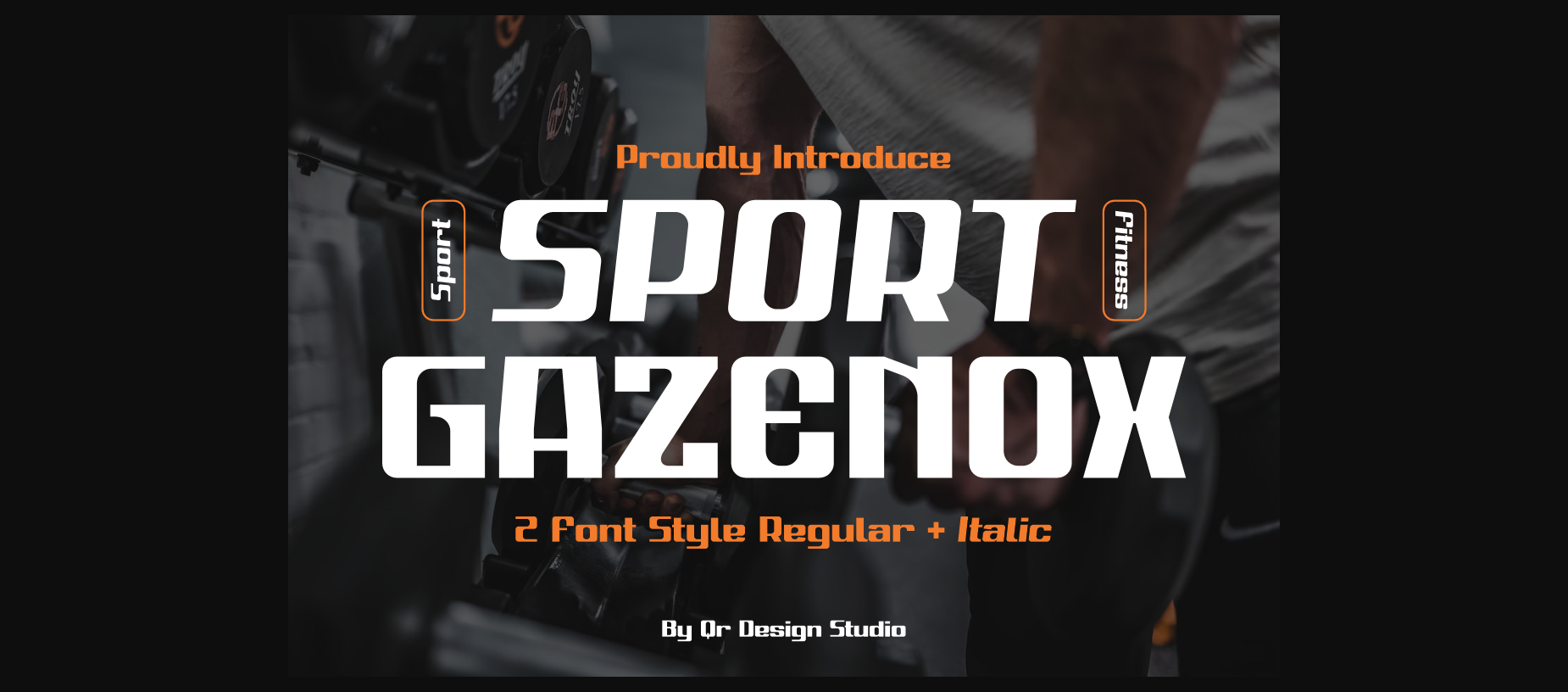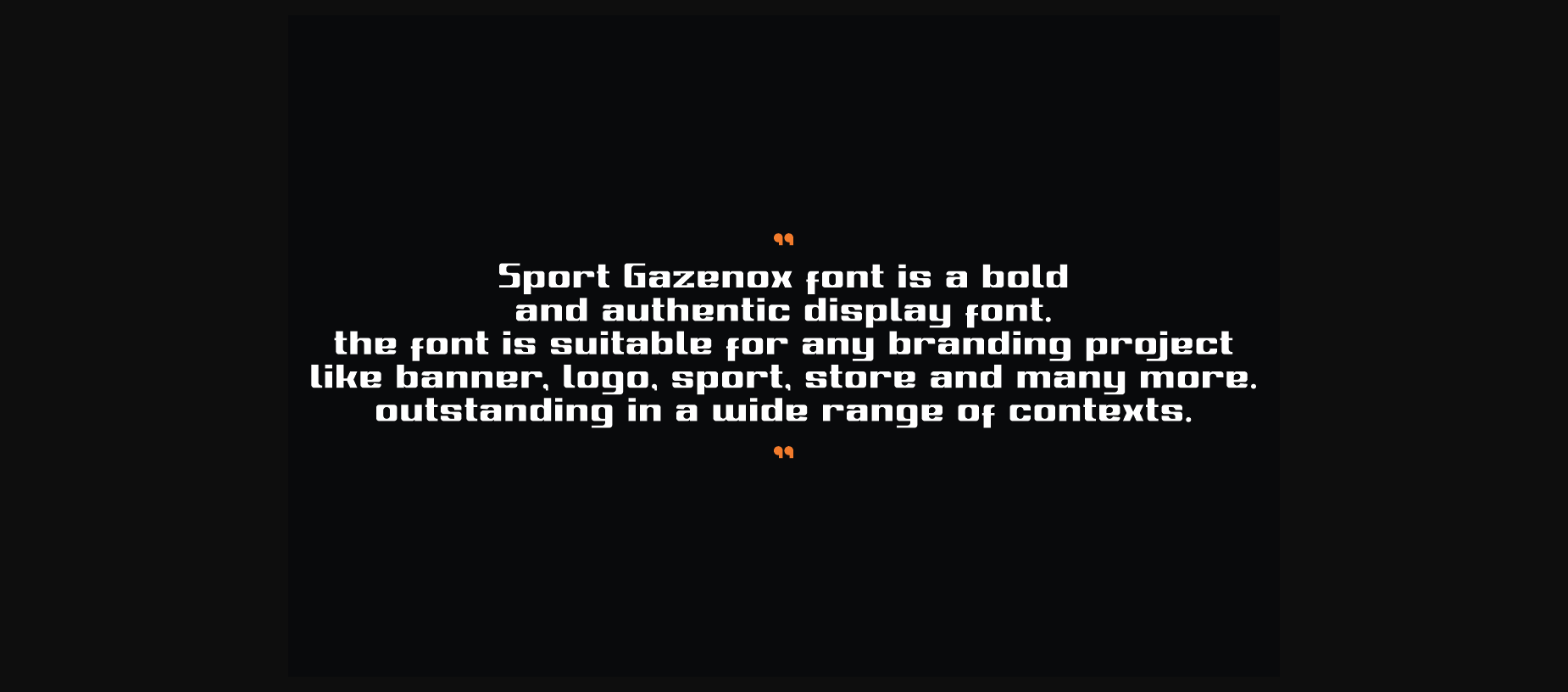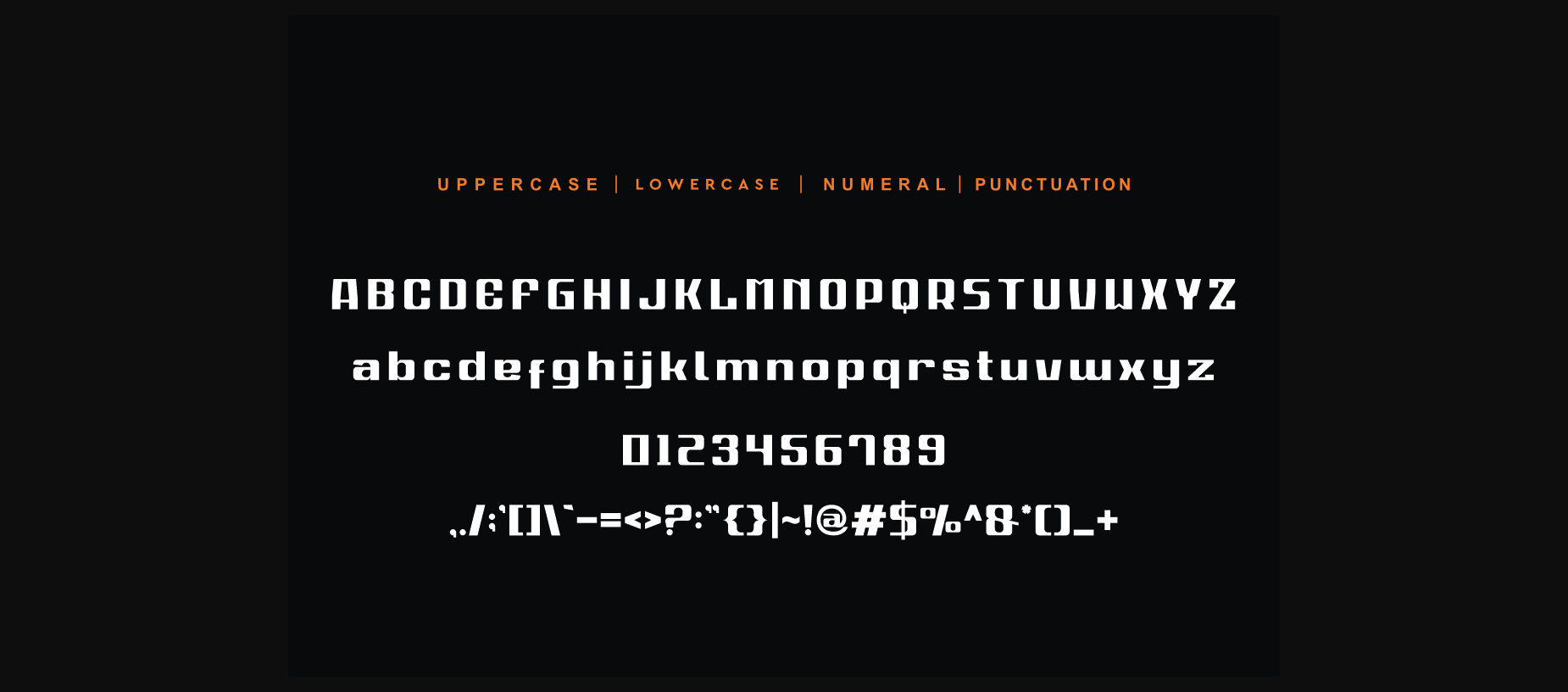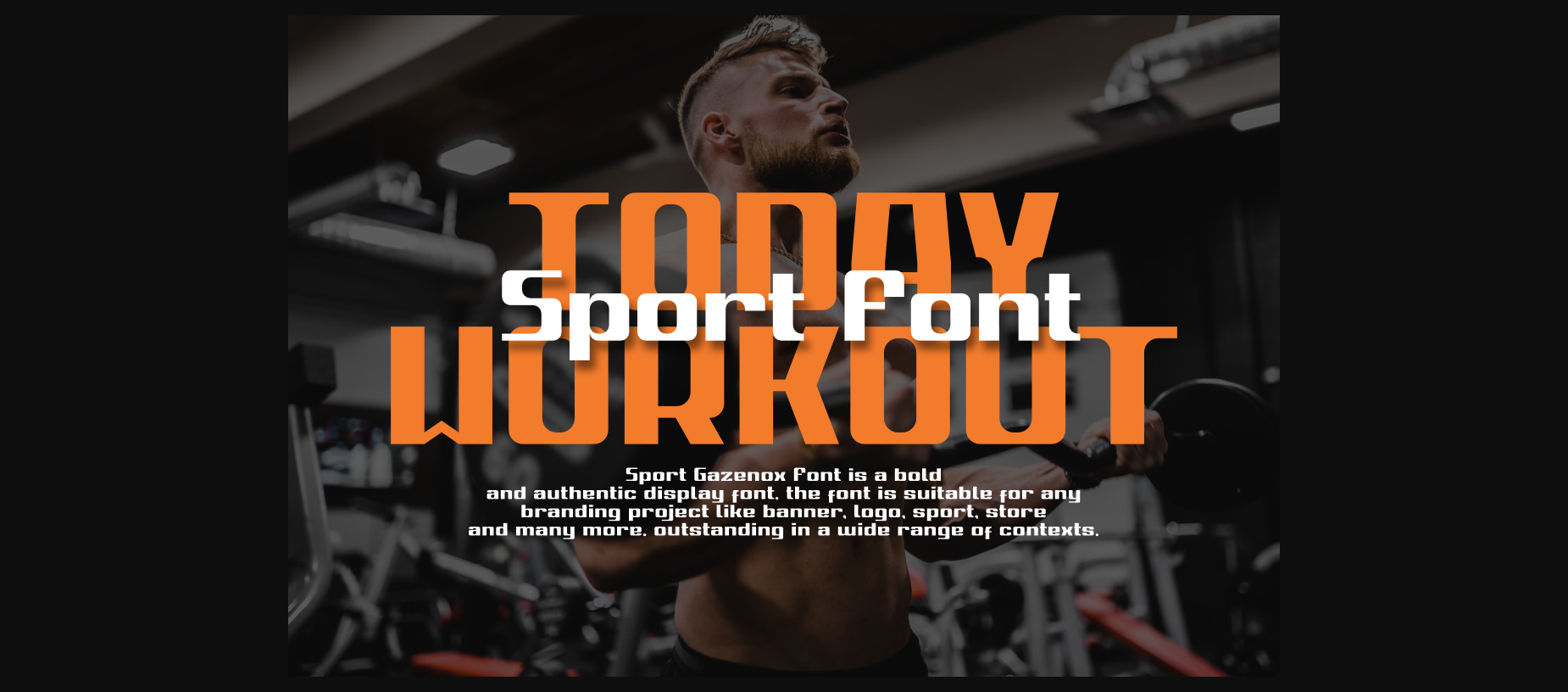
About Sport Gazenox Font
Sport Gazenox Font is a bold and authentic display font.
The font is suitable for any branding project like logos, sport, and many more.